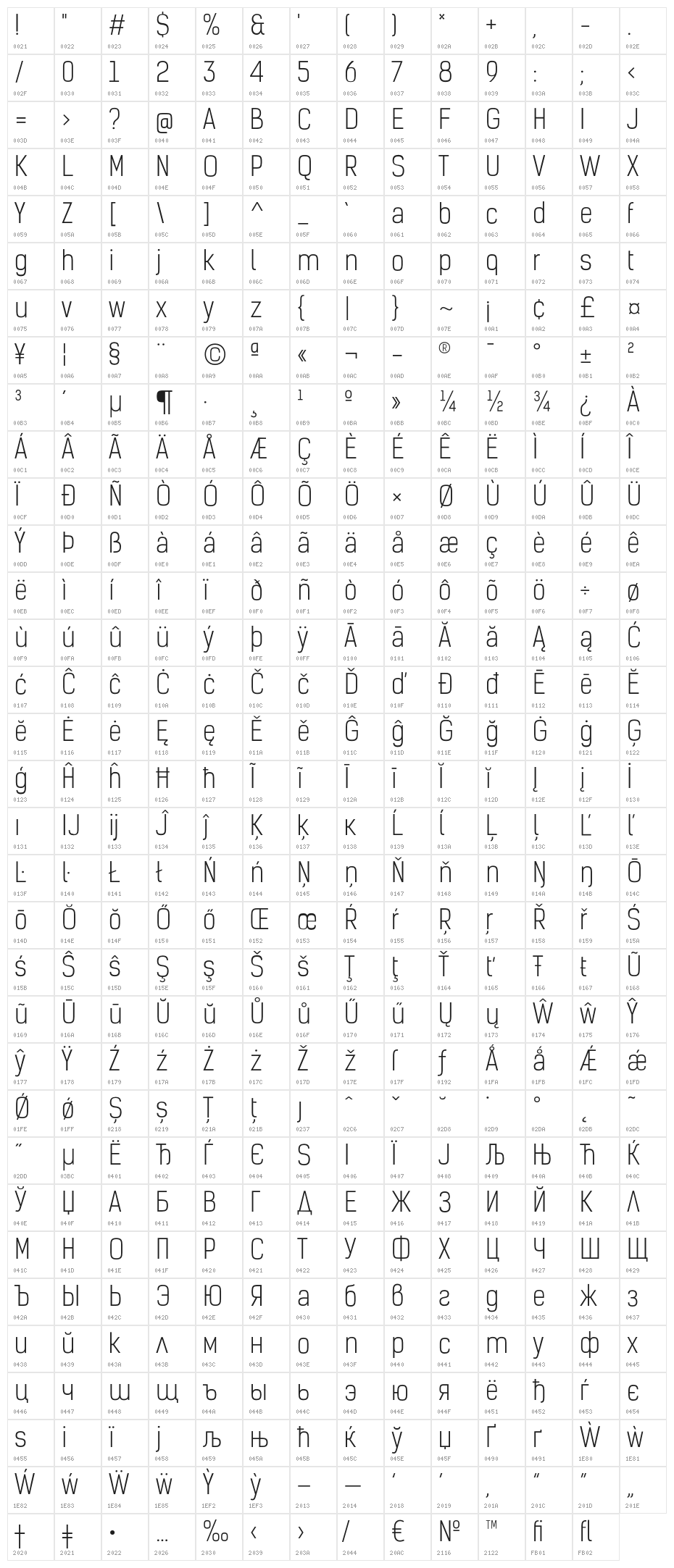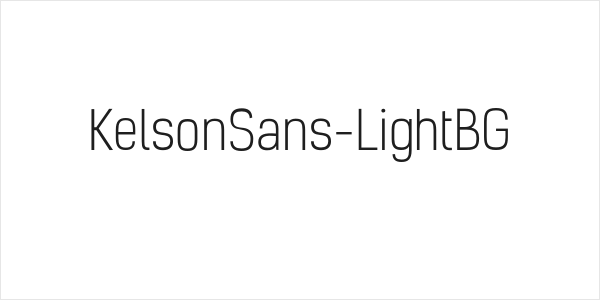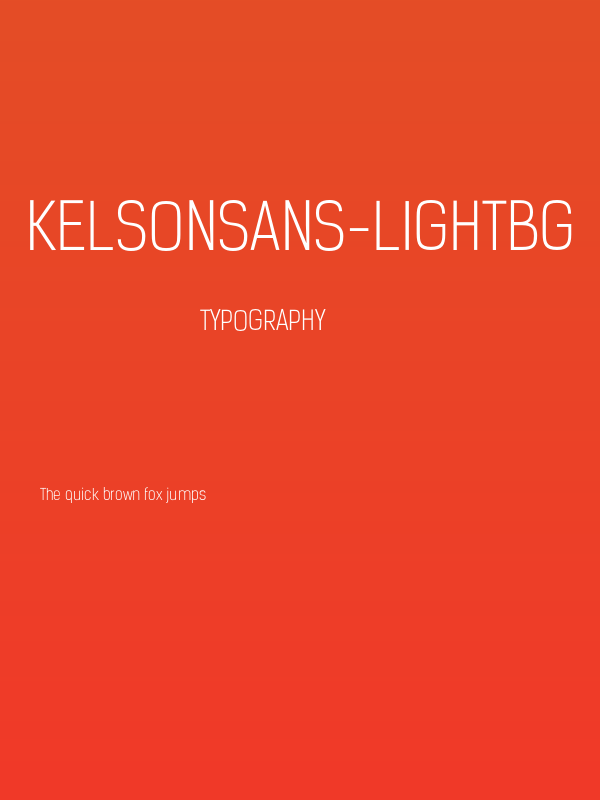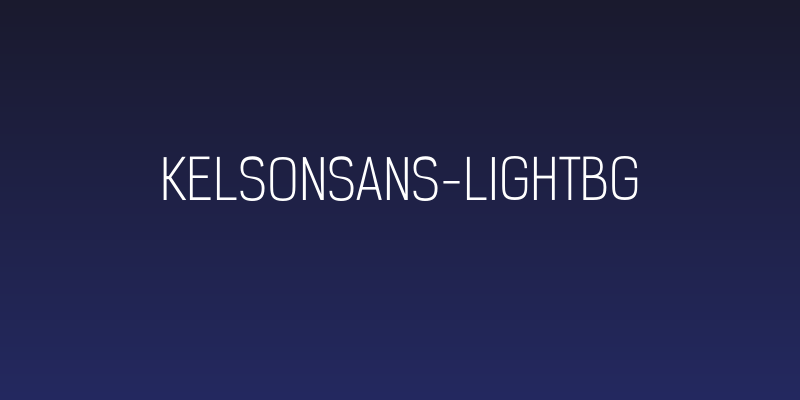
KelsonSans-LightBG Font
KelsonSans-LightBG Description
This font features a clean and modern sans-serif style with a light weight, making it ideal for minimalist designs. The characters are well-proportioned with a uniform stroke width, contributing to its sleek appearance. The uppercase and lowercase letters are distinct yet harmonious, providing excellent readability. The numerals are clear and consistent, while the special characters blend seamlessly with the overall design. Its simplicity and elegance make it versatile for various applications.
| Proposed Projects | Ideal for branding, web design, corporate materials, and minimalist posters. |